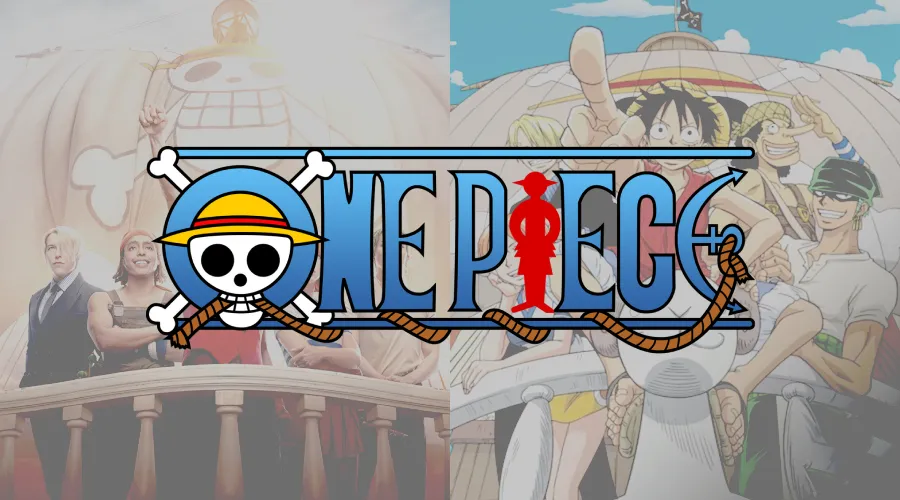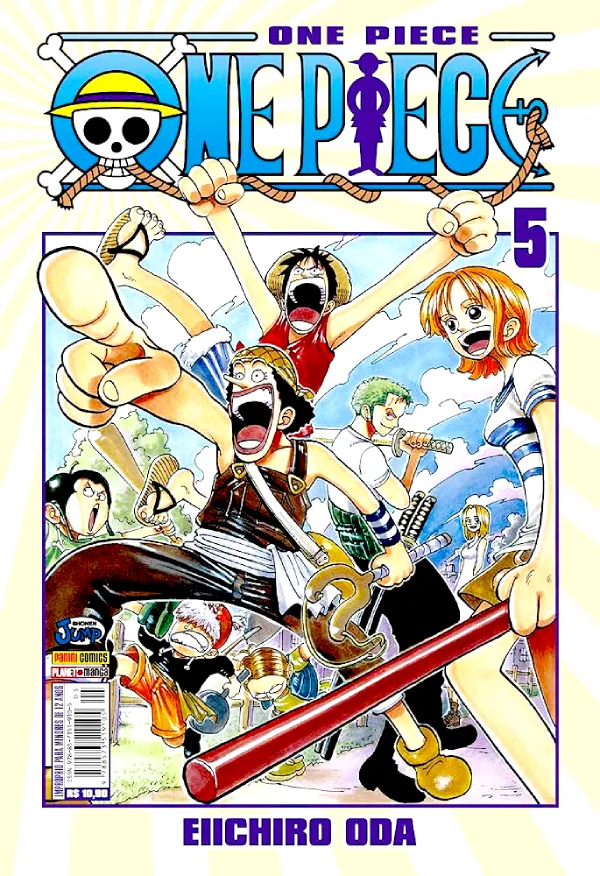
One Piece Font
One Piece is a popular Japanese manga series written and illustrated by Eiichiro Oda. It follows the adventures of Monkey D. Luffy, a young man whose body gains the properties of rubber after unintentionally eating a Devil Fruit.
One Piece has a distinctive logo that features a stylized skull and crossbones with the words “ONE PIECE” in a bold, contoured font.
One Piece Fonts
There are several fonts that are inspired by or similar to the One Piece logo. Here are some examples of One Piece fonts:
One Piece
One Piece font by Phantop king graphics
This is a replica font of the One Piece logo designed by Phantom King Graphics. The font is available for free download and personal & commercial use. The font provides all uppercase and lowercase letters, numerals and most punctuation marks.
RT Dyans Regular
RTDyansBasic font Character Map
This is a sans serif font with a retro and sporty feel designed by Veteran Type. Its characters look a bit similar to the One Piece logo.
Sayyeda Font
Sayyeda Font Character Map
This is a fan-made font designed by FG Studios, which has maintained a similar look to the One Piece logo, but has some differences.